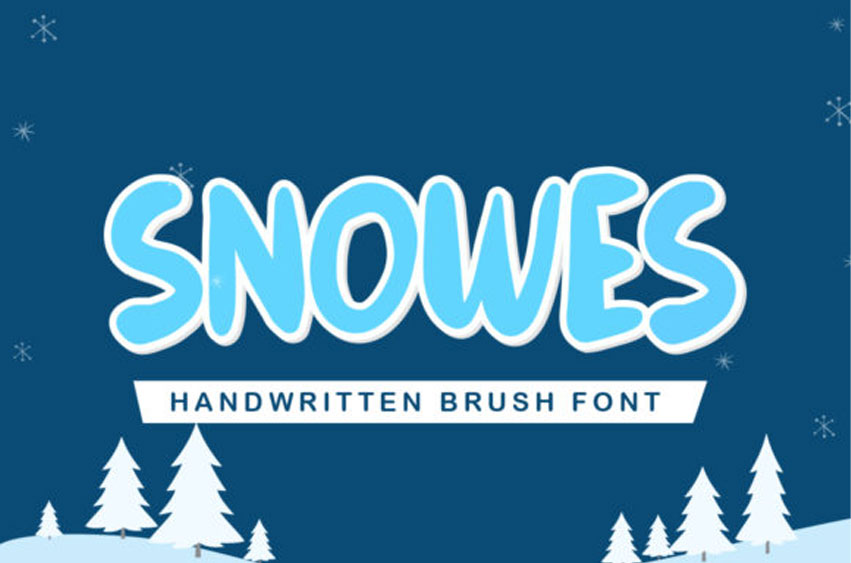
Snowes Font is a friendly, casual and fun display font.
This font is perfect for children themed designs, especially when combined with bright colors.